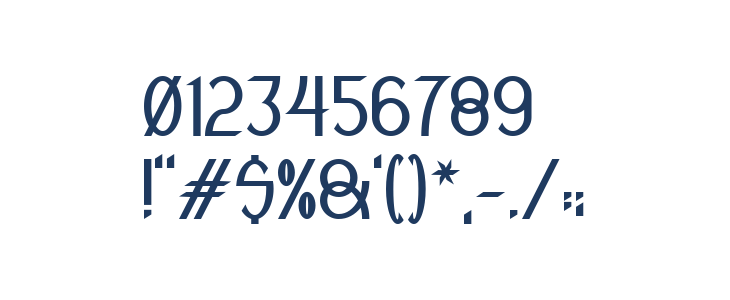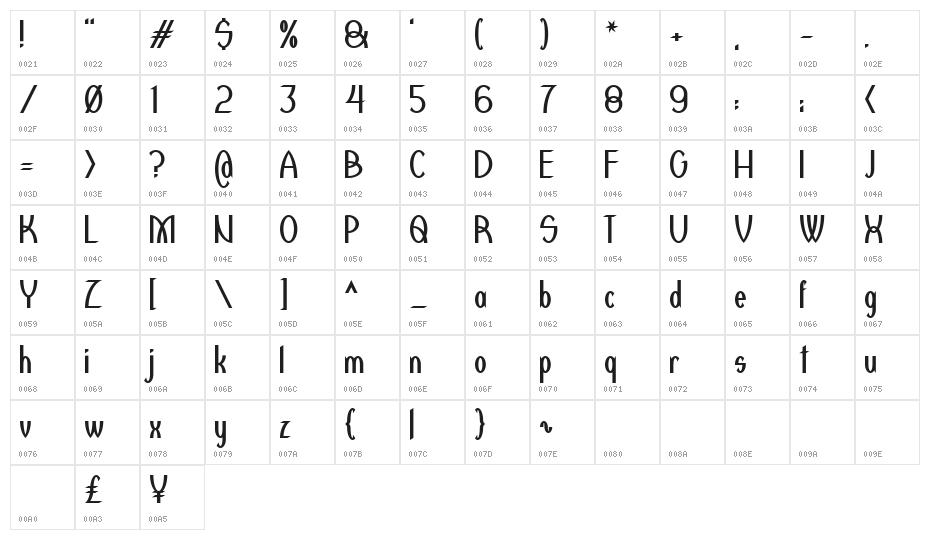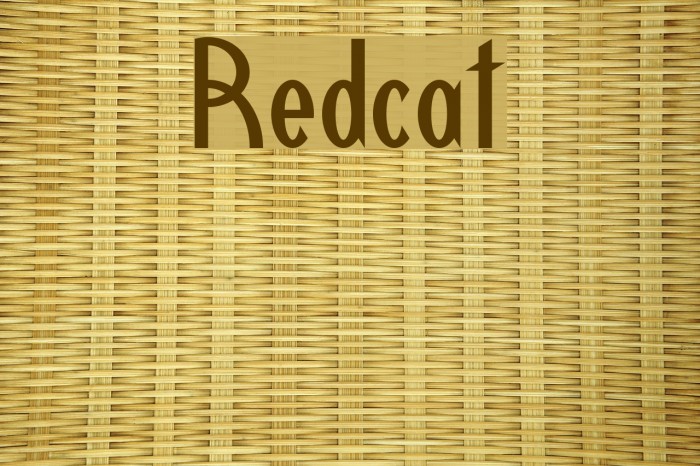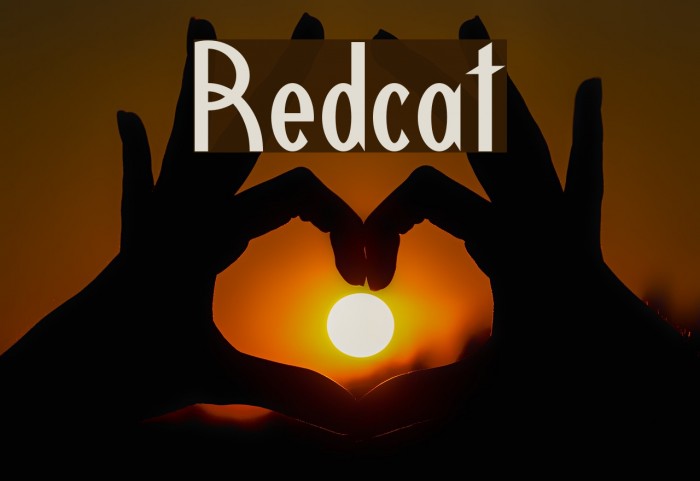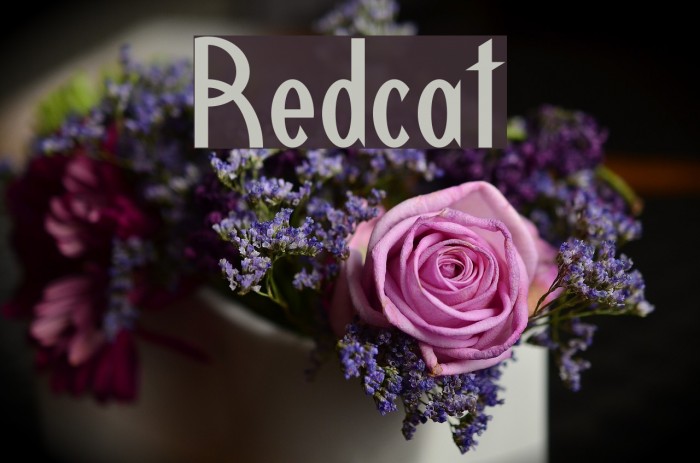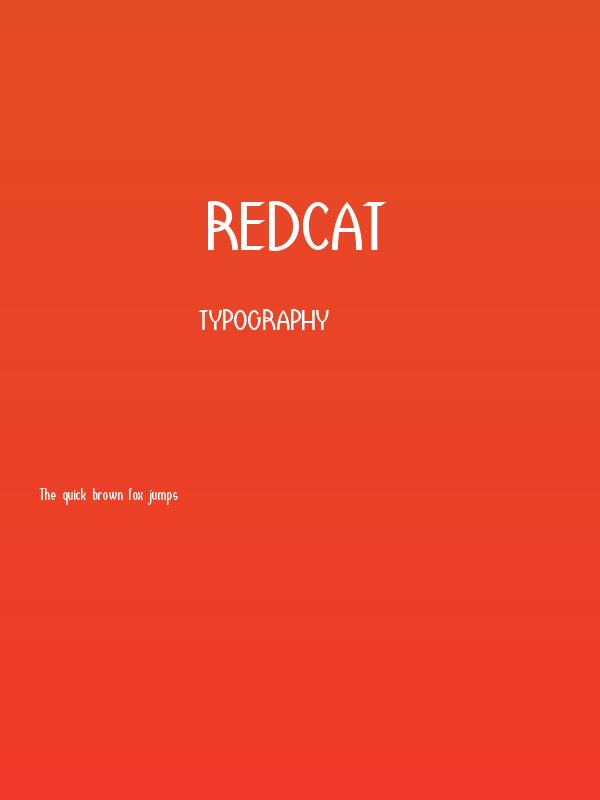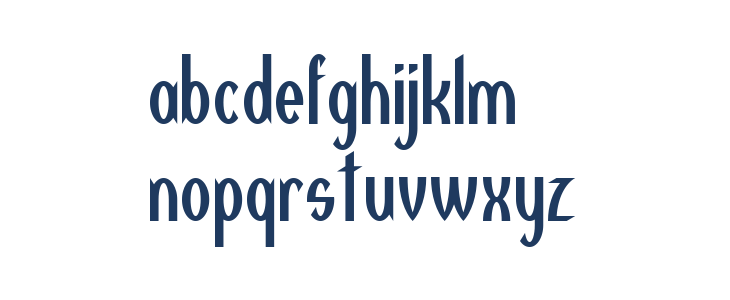
Redcat Font
Redcat Description
This font features a unique and playful design with a distinctively modern flair. The uppercase letters exhibit a bold and slightly condensed style, with rounded edges that add a touch of softness to the overall appearance. The lowercase letters maintain a consistent design, complementing the uppercase with a slightly more whimsical touch, particularly noticeable in the curves and loops. The numerals are clear and easy to read, following the same stylistic cues as the letters. Special characters are well-integrated, ensuring versatility in various design contexts. This font's overall aesthetic is both eye-catching and approachable, making it suitable for a wide range of creative projects.